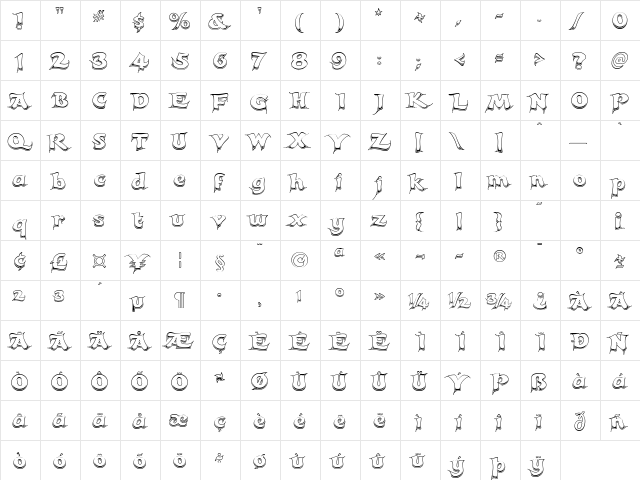
Candles Chrome Font Preview
Design Context for Candles Chrome Typeface
Candles Chrome is a composed and adaptable typeface that performs quietly and consistently across a wide range of design contexts.